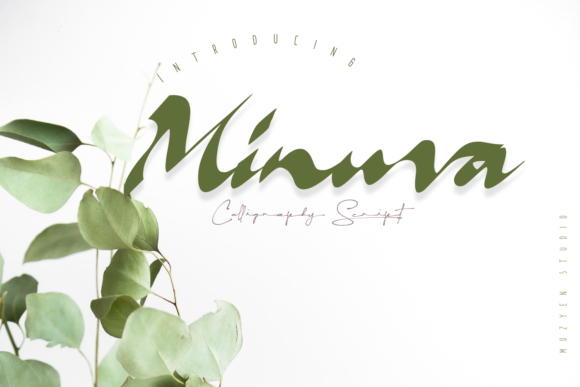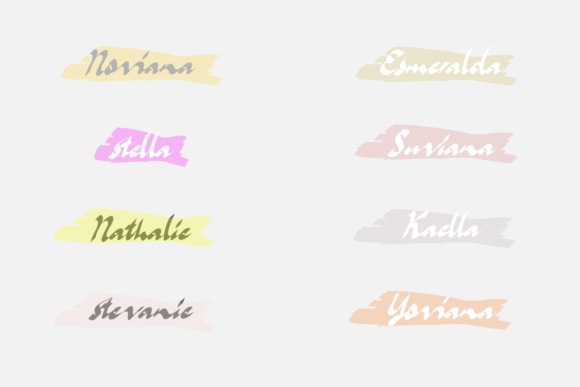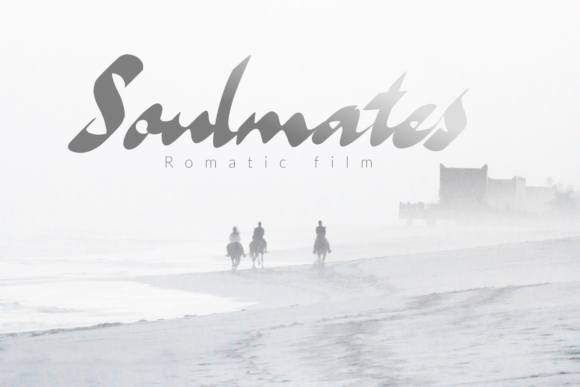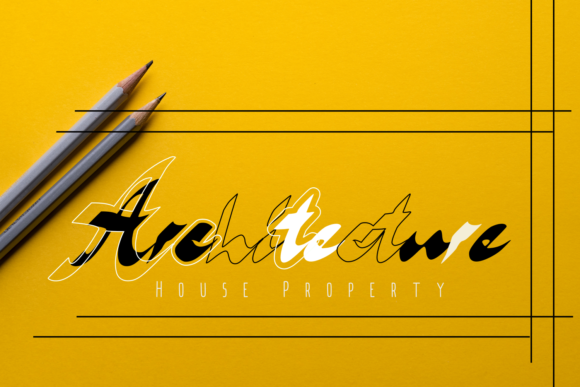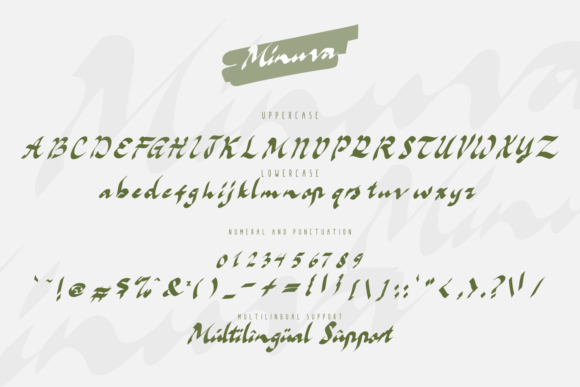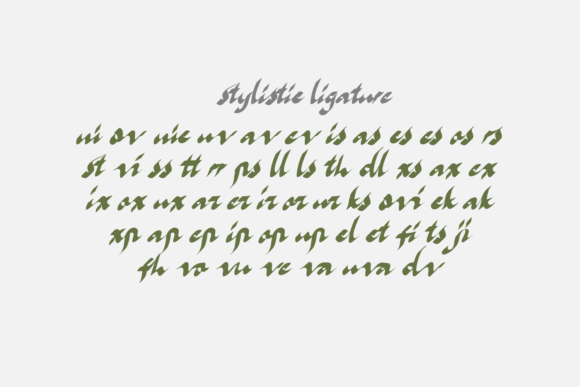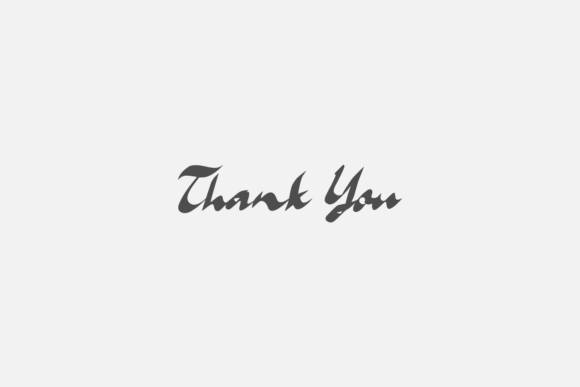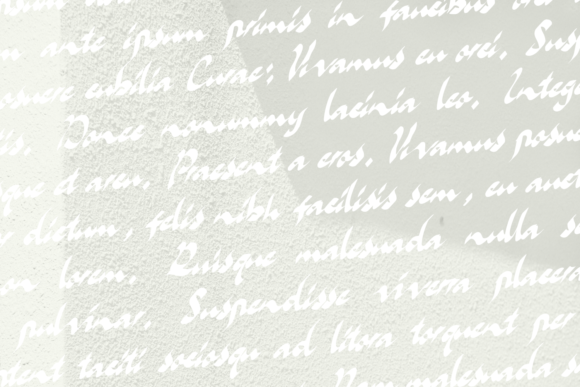
Minuva Font
About Minuva Font
Minuva is a beautiful handwritten font that boasts a unique and distinctive style. With its flexibility and neat appearance, this font has the ability to bring a touch of brightness to all your designs. Enjoy the creative journey with this cool font as you explore its endless variations and possibilities.
The unique style of Minuva sets it apart from other fonts, making it a standout choice for your design projects. Its handcrafted letterforms and artistic flair create an aesthetic that is both captivating and versatile. Whether you’re working on logos, branding materials, invitations, or any other design, Minuva font enhances the overall visual appeal with its cool and engaging demeanor.
Minuva’s neat and well-defined style adds a touch of professionalism to your typographic compositions. The clean lines and precise curves create a sense of order and clarity, making your designs visually appealing and easy to read. This font strikes a balance between being stylish and approachable, allowing it to adapt to a variety of design contexts.
The flexibility of Minuva allows you to explore endless variations and creative possibilities. Its wide range of glyphs and swashes, made accessible through PUA encoding, provides you with the tools to customize and embellish your designs. This font empowers you to create unique and eye-catching typographic arrangements that truly reflect your style and vision.
Incorporating Minuva into your projects allows you to infuse them with a sense of beauty and creativity. Its unique style and neat appearance brighten up your designs, making them visually stunning and engaging.
In summary, Minuva is a beautiful handwritten font with a unique style that adds a touch of brightness to your designs. Its flexibility and neat appearance make it a perfect choice for various design projects. Embrace the coolness of Minuva font and enjoy the journey of exploring its endless variations and possibilities.